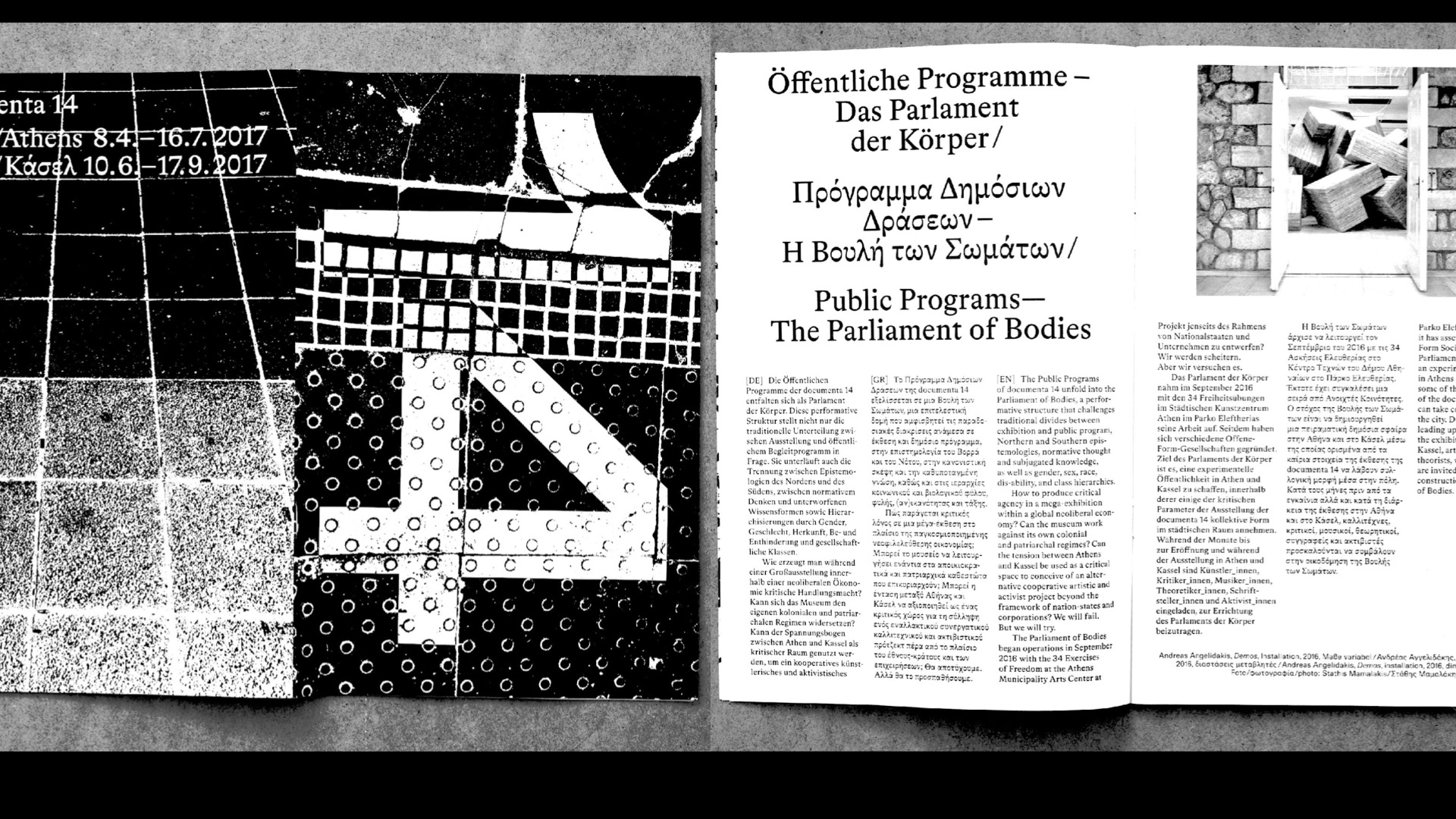
Q&A Irene Vlachou
It seemed interesting to us to make you discover the profiles of our guests. Discover Irene Vlachou's interview.
Biography Irene Vlachou is a typeface designer based in Athens. She holds an MA in Typeface Design from the University of Reading. She has collaborate with international type foundries and corporations, working as a typeface designer and a consultant for Greek typefaces. From 2013-2019, she was a senior designer and variable font expert at Type-Together. She currently works full time, as a freelancer typeface designer, specialising in OEM/System fonts. On behalf of the Greek Open Source Community (GFOSS), she is a mentor on the expansion of Greek libre fonts for the GSOC (Google Summer of Code) program. For the spring semester of 2022, she is an artist-in-residency at La Becque and a visiting professor at the Master program of Typeface design at ECAL, Lausanne.
Interview
“To be curious about different disciplines and fields. There is always something new than can inform your work and your point of view. Strict specialization takes all the interest and variety out of our work.”
– Irene Vlachou
How much a software and its fixed rules can determine a type project?
Irene Vlachou I think it’s always getting better. Things move on technologically and now days you can do things in and with fonts that you couldn’t, let’s say, 7 years ago. Fixed rules are there to be challenged, to be broken and to evolve. I don’t really find these limitations something to discourage me, probably the opposite :)
Redrawing type classics or inventing new forms?
Irene Vlachou No, don’t think I have spent actual time in revivals. I study a lot of the old and classic designs and I re-use bits and pieces, but I don’t think I would be interested in the redraw of a full set.
Is it possible to draw a typeface for a language we do not know?
Irene Vlachou One of the beautiful things in typeface design and typography is that you get in contact with different scripts, writing systems and typographic notions. This plurality of our profession is a great inspiration and knowledge source that can inform one’s work, even if the alphabet is different. Personally, I’m more interesting in learning about all of these than actually draw them myself. In any case there is so much more to be done with Greek that I wouldn’t really have the time for learning inadequately another script :)
What do you think of this trend of free fonts?
Irene Vlachou I think the demonization of Open source projects isn’t really helpful or productive. Open Source projects serve a very specific purpose and a very specific audience that I don’t think it ever intersects with custom, retail market fonts. Especially for scripts with low market power, open source projects can and have been a source of information, documentation of endangered languages. Regardless to say about the technological progress that open source code can offer, with open libraries and documentation that any individual can study, modify, and give back by re-distributing.
“One of the beautiful things in typeface design and typography is that you get in contact with different scripts, writing systems and typographic notions.”
– Irene Vlachou
Do you sketch–draw on paper?
Irene Vlachou It’s mainly a digital workflow, but I usually sketch in parallel, really fast drawing, to try out ideas.
Do you have words of wisdom for someone who wants to become a designer?
Irene Vlachou I wouldn’t call it a wisdom and neither specific-only to graphic arts. I suppose to be curious about different disciplines and fields. There is always something new than can inform your work and your point of view. Strict specialization takes all the interest and variety out of our work.